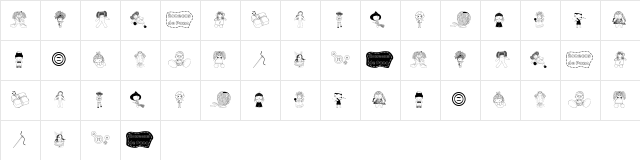
BonecaS de Pano Regular
Design Context for BonecaS de Pano
BonecaS de Pano is a composed and adaptable typeface that performs quietly and consistently across a wide range of design contexts.